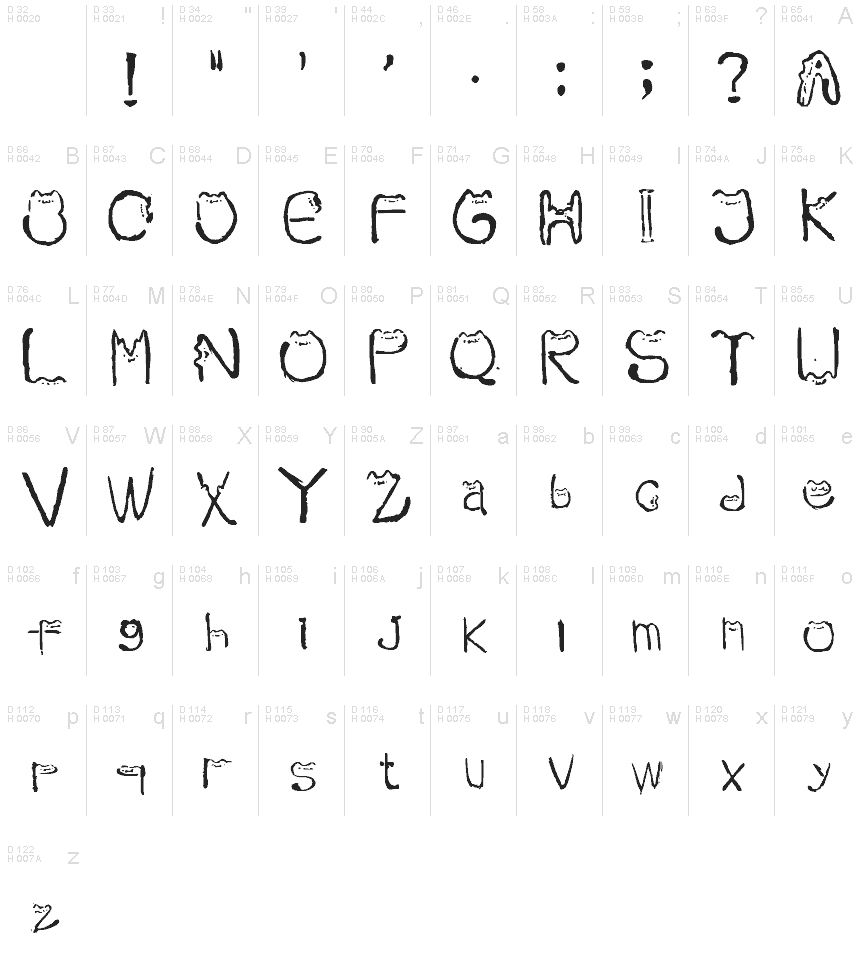
Cat Regular
The font "Cat" by Vladimir Nikolic is a captivating display typeface that exudes a distinct, decorative flair. With its condensed width, this font commands attention and evokes a bold, unapologetic aesthetic. The sharp, jagged edges of the letterforms lend an edgy, almost primal quality, making it an ideal choice for branding, poster designs, or any application where a strong, attention-grabbing visual impact is desired.
The font's condensed structure allows for compact, space-efficient typesetting, making it a versatile option for a range of design projects, from eye-catching headlines to impactful product packaging. Its decorative nature lends itself well to creative applications in the realms of fashion, music, or any industry seeking a unique, memorable typographic identity.